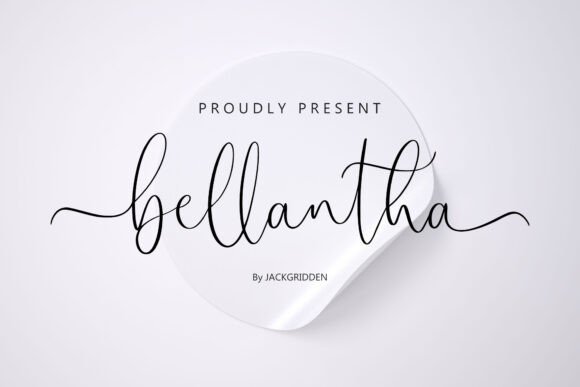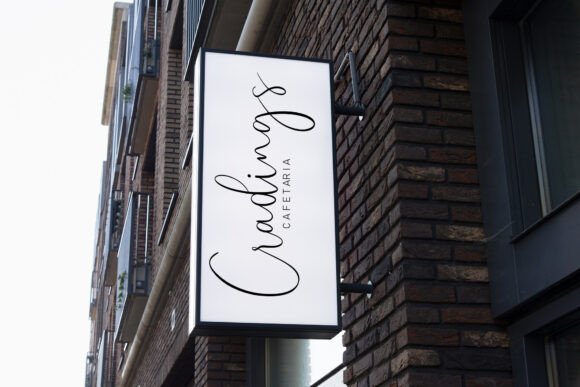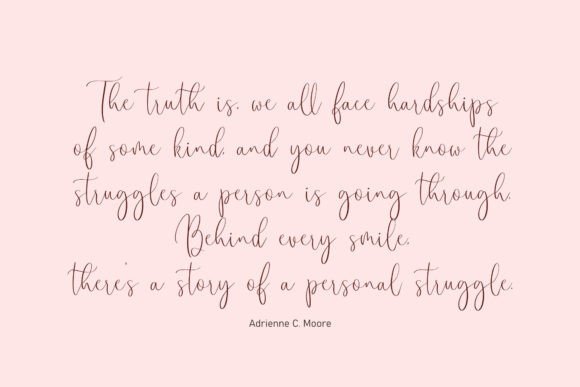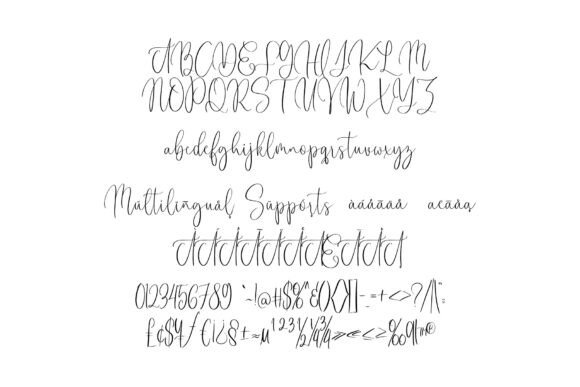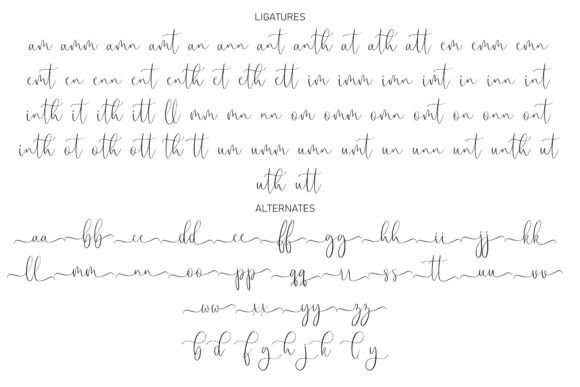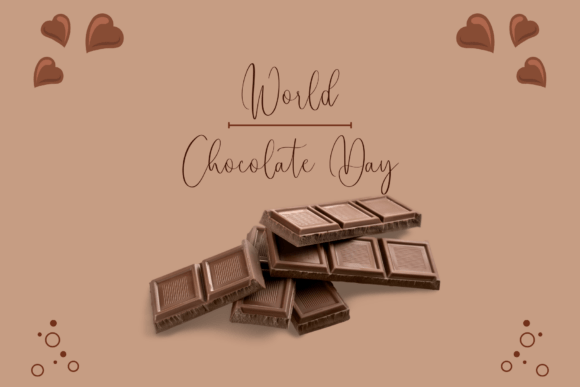
Bellantha Font: Elevate Your Designs with Elegance and Charm
In the world of typography, few fonts manage to capture the essence of elegance and charm as beautifully as Bellantha. This exquisitely crafted handwritten signature font is designed to bring a touch of sophistication and whimsy to a wide range of creative projects. Whether you’re a designer looking to elevate your branding materials or a crafter seeking the perfect font for your wedding stationery, Bellantha is an exceptional choice.
The Unique Charm of Bellantha
Bellantha stands out with its unique calligraphic flair, a feature that sets it apart from more traditional fonts. The font’s design is characterized by its fluid strokes and harmonious letterforms, which combine to create a sense of movement and elegance. This makes Bellantha particularly well-suited for projects where making a statement or evoking a specific emotional response is key.
Thoughtfully Designed Ligatures for Seamless Flow
One of the standout features of Bellantha is its thoughtfully designed ligatures. These special connections between letters ensure a seamless flow in every word, creating a harmonious and aesthetically pleasing text that is a joy to read. The ligatures in Bellantha add a level of sophistication and professionalism to any project, making it ideal for high-end branding, luxury wedding stationery, and elegant website designs.
Ideal for a Variety of Creative Projects
Bellantha’s versatility is one of its greatest strengths. This font is perfectly suited for a wide range of creative projects, including:
• Logos: Add a touch of elegance and personality to your brand’s logo with Bellantha’s unique and captivating letterforms.
• Wedding Stationery: Make your wedding invitations, programs, and other stationery truly unforgettable with Bellantha’s romantic and whimsical feel.
• Photographer Watermarks: Elevate your photography with elegant watermarks that add a professional touch to your images.
• Modern Websites and Branding Materials: Use Bellantha to create stunning website headers, social media graphics, and other branding materials that capture the essence of your brand.
Stunning Beginning and End Swashes for Lowercase Letters
Bellantha also features stunning beginning and end swashes for lowercase letters, adding an extra layer of artistic flair to your designs. These swashes allow you to further customize your text, creating a truly unique and eye-catching look that sets your project apart. Whether you’re looking to add a touch of whimsy or a dash of elegance, Bellantha’s swashes give you the creative freedom to experiment and find the perfect look for your project.
Elevate Your Designs with an Artistic and Romantic Feel
Incorporating Bellantha into your designs is a surefire way to add an artistic and romantic feel. The font’s elegant strokes, beautiful ligatures, and charming swashes come together to create a look that is both sophisticated and endearing. Whether you’re aiming for a vintage, rustic, or modern aesthetic, Bellantha provides the perfect foundation for creating visually stunning and emotionally resonant designs.
Bellantha is more than just a font; it’s a design element that can transform your projects with its elegance, charm, and artistic flair. With its unique calligraphic style, thoughtfully designed ligatures, and stunning swashes, Bellantha offers endless possibilities for creative expression. Whether you’re a designer, crafter, or simply someone who appreciates beautiful typography, Bellantha is a valuable addition to your creative toolkit. So why settle for ordinary when you can create something extraordinary with Bellantha?